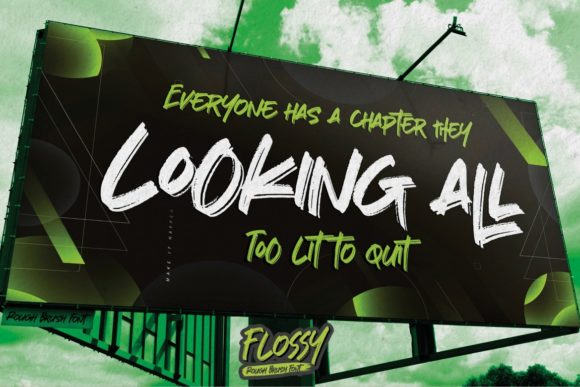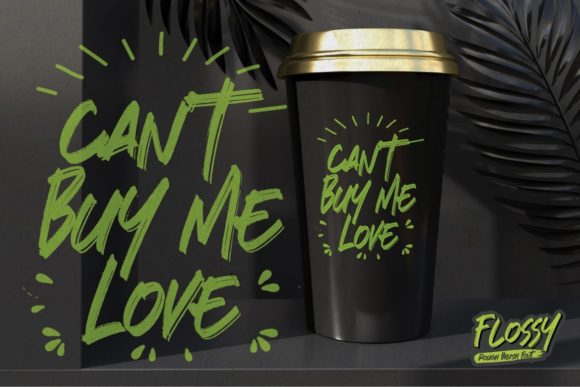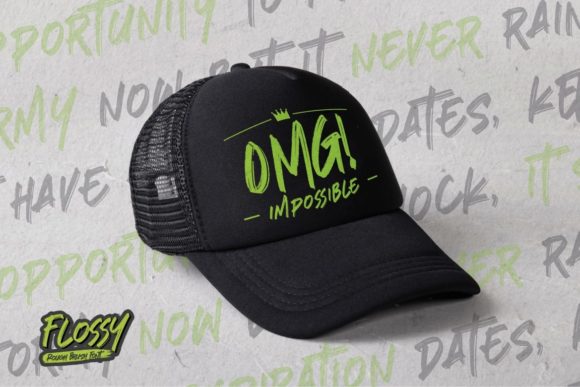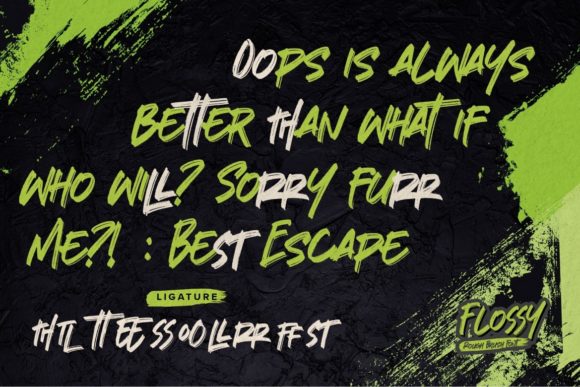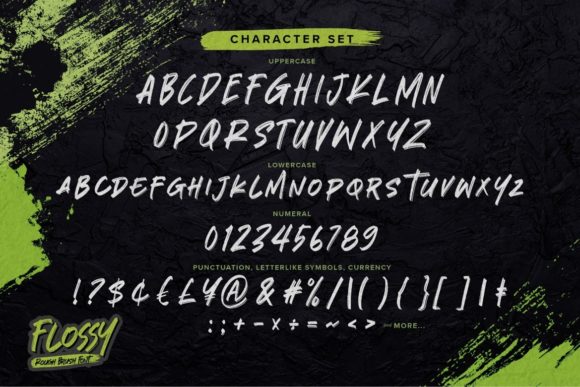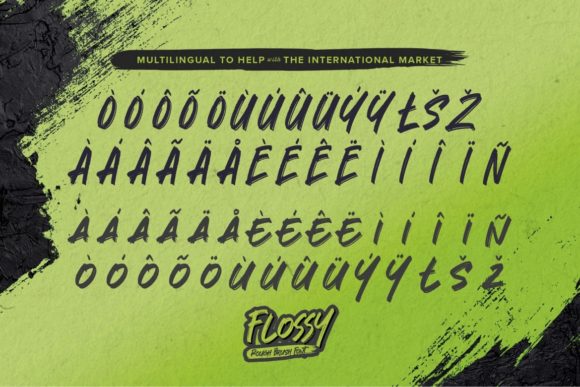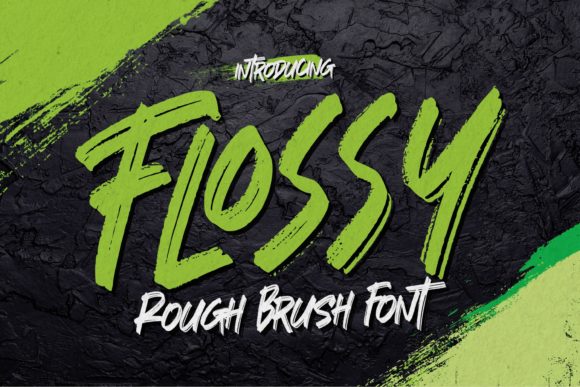
Introducing Flossy Font: Adding a Touch of Drama to Your Creative Projects
In the world of typography, fonts play a crucial role in conveying the tone and personality of a brand or design. If you’re looking for a font that can add a dash of drama and creativity to your projects, look no further than Flossy Font. This rough-styled display font is perfect for designers and crafters who want to make a statement with their work.
What is Flossy Font?
Flossy Font is a bold and eye-catching display font that features rough, hand-crafted letters with a sense of dramatic movement. Its unique texture and style make it stand out from more traditional fonts, giving your designs a fresh and modern look. Whether you’re working on a logo, printed quote, invitation, card, product packaging, or header, Flossy Font is sure to grab attention.
Key Features of Flossy Font
- Bold Letters: Flossy Font features bold, chunky letters that are perfect for making a statement.
- Rough Texture: The font’s rough texture gives it a hand-crafted feel that’s perfect for adding a touch of personality to your designs.
- Dramatic Movement: The letters in Flossy Font have a sense of movement, as if they’re dancing across the page.
- Versatile: Flossy Font can be used for a wide range of creative projects, from logos and branding to invitations and packaging.
Uses for Flossy Font
Flossy Font is a versatile font that can be used for a wide range of creative projects, including:
- Logos and Branding: Use Flossy Font to create a bold and eye-catching logo that sets your brand apart.
- Printed Quotes: Add a touch of drama to your printed quotes with Flossy Font’s bold and expressive letters.
- Invitations and Cards: Use Flossy Font to create unique and eye-catching invitations and cards that are sure to impress.
- Product Packaging: Add a touch of personality to your product packaging with Flossy Font’s bold and playful letters.
- Headers and Titles: Use Flossy Font to create bold and eye-catching headers and titles that grab attention.
Why Choose Flossy Font?
So why choose Flossy Font for your next creative project? Here are just a few reasons:
- Unique Style: Flossy Font has a unique and eye-catching style that’s sure to set your designs apart.
- High-Quality: Flossy Font is a high-quality font that’s designed to produce crisp and clear results, even at large sizes.
Tips for Using Flossy Font
Here are a few tips for getting the most out of Flossy Font:
- Use it Sparingly: Because Flossy Font is so bold and eye-catching, it’s best to use it sparingly. Use it for headings and titles, but stick to a simpler font for body text.
- Experiment with Colors: Flossy Font looks great in a wide range of colors, so don’t be afraid to experiment and find the perfect color for your design.
- Combine with Other Fonts: Flossy Font can be combined with other fonts to create a unique and eye-catching design. Try pairing it with a simpler font for a bold and modern look.
In conclusion, Flossy Font is a unique and versatile font that’s perfect for designers and crafters who want to add a touch of drama and creativity to their projects. With its bold letters, rough texture, and dramatic movement, Flossy Font is sure to grab attention and make your designs stand out. So why not give it a try and see what you can create?